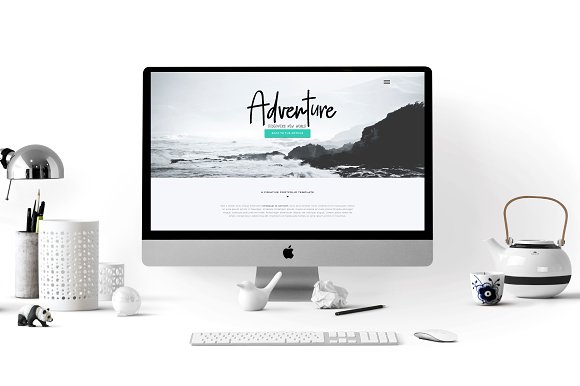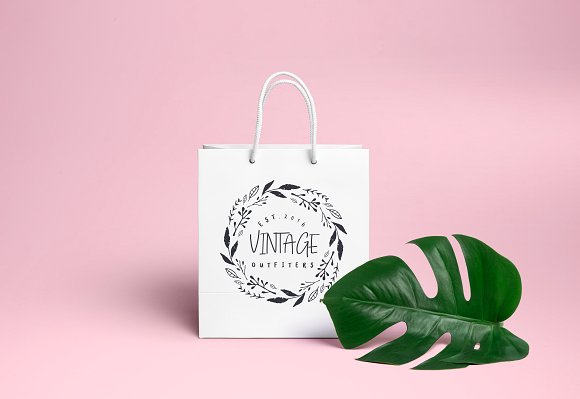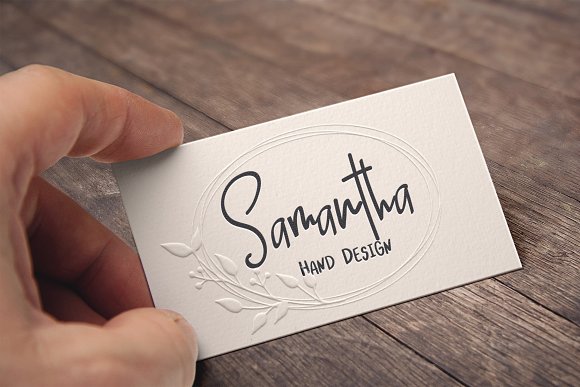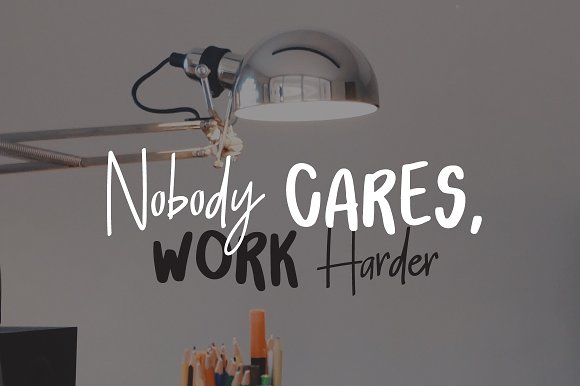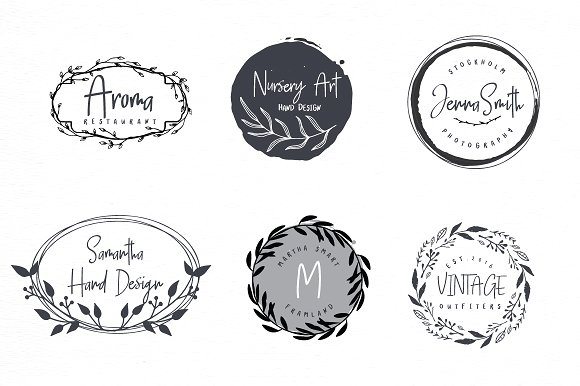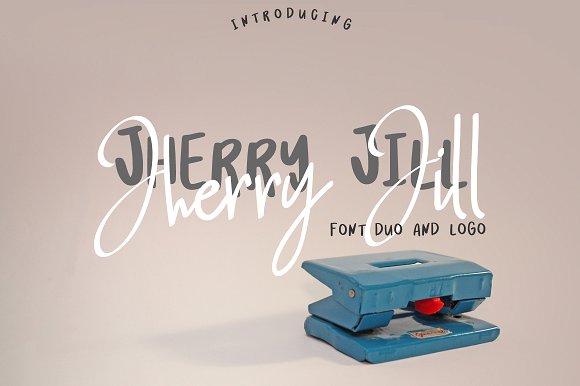
Jherry Jill | Font Duo + 6 Logos
Jherry Jill
it’s handwritten script font.
This font a perfect for every project, wedding invitation or your blog. Also with their help, you can create a logo or beautiful frame for your home. Or just use for your small business, book covers, stationery and more.